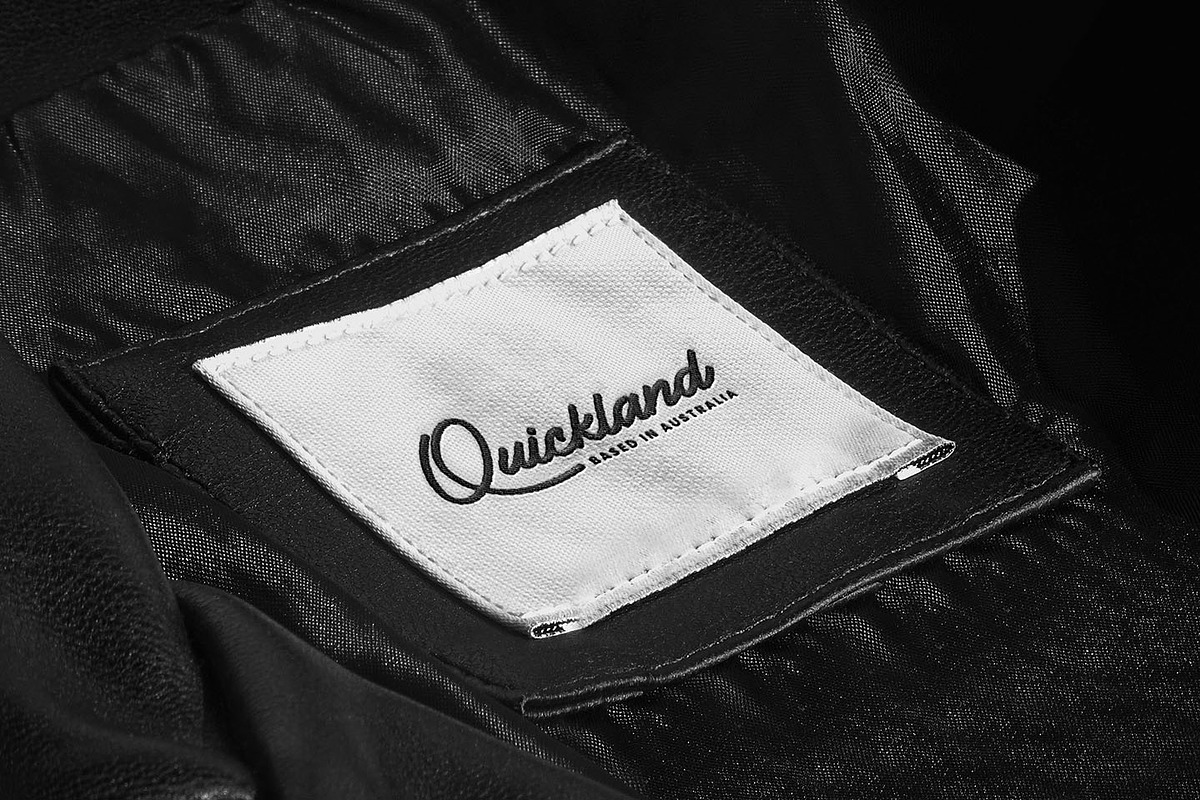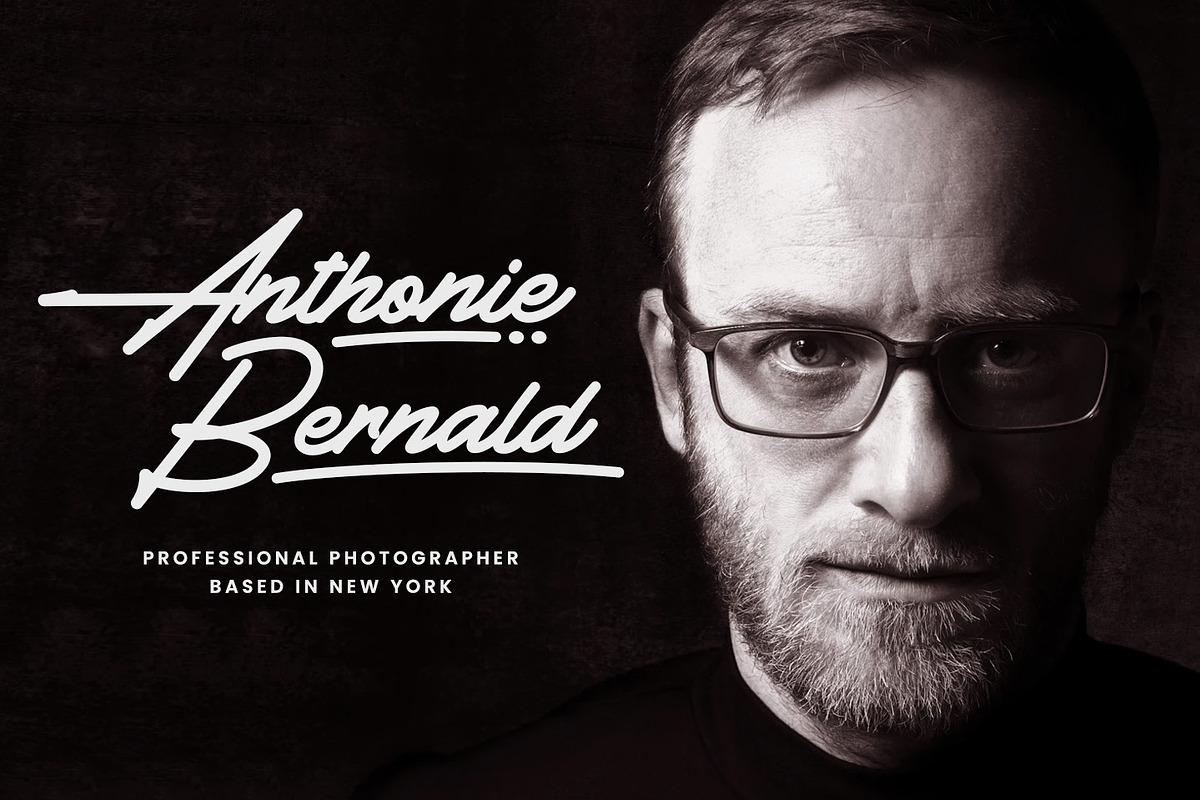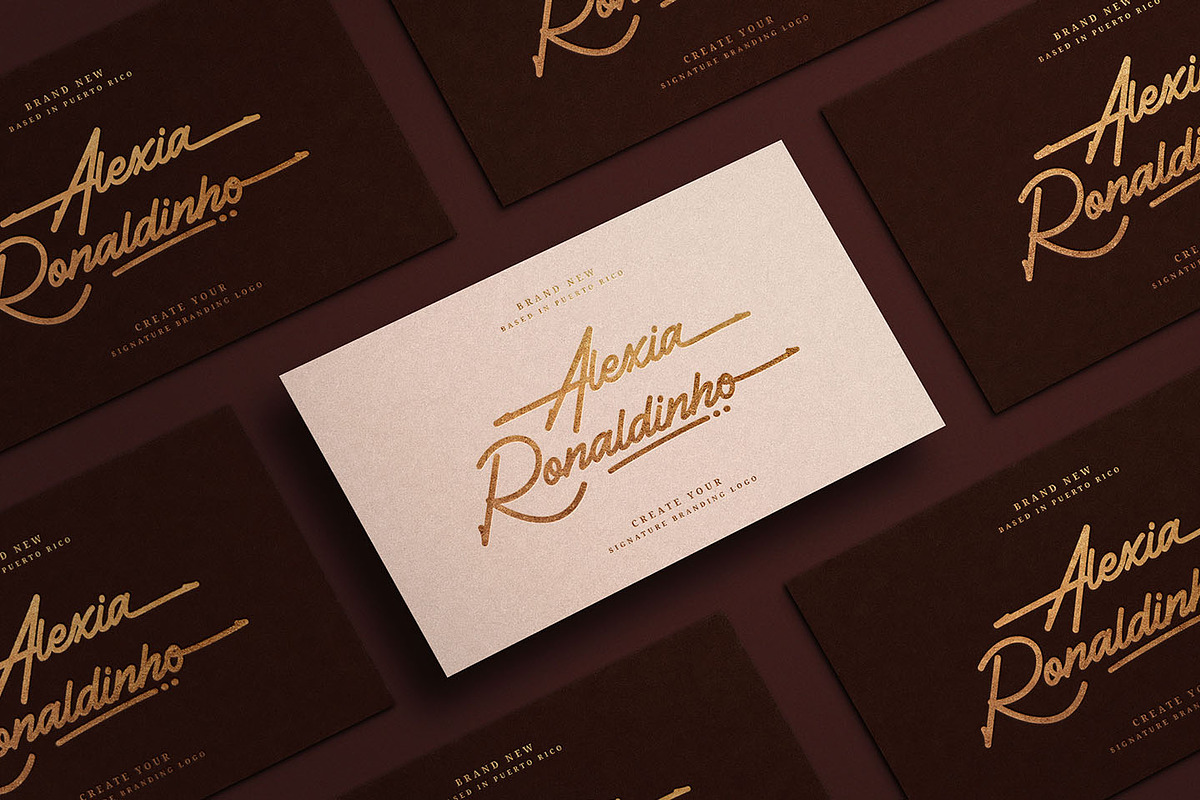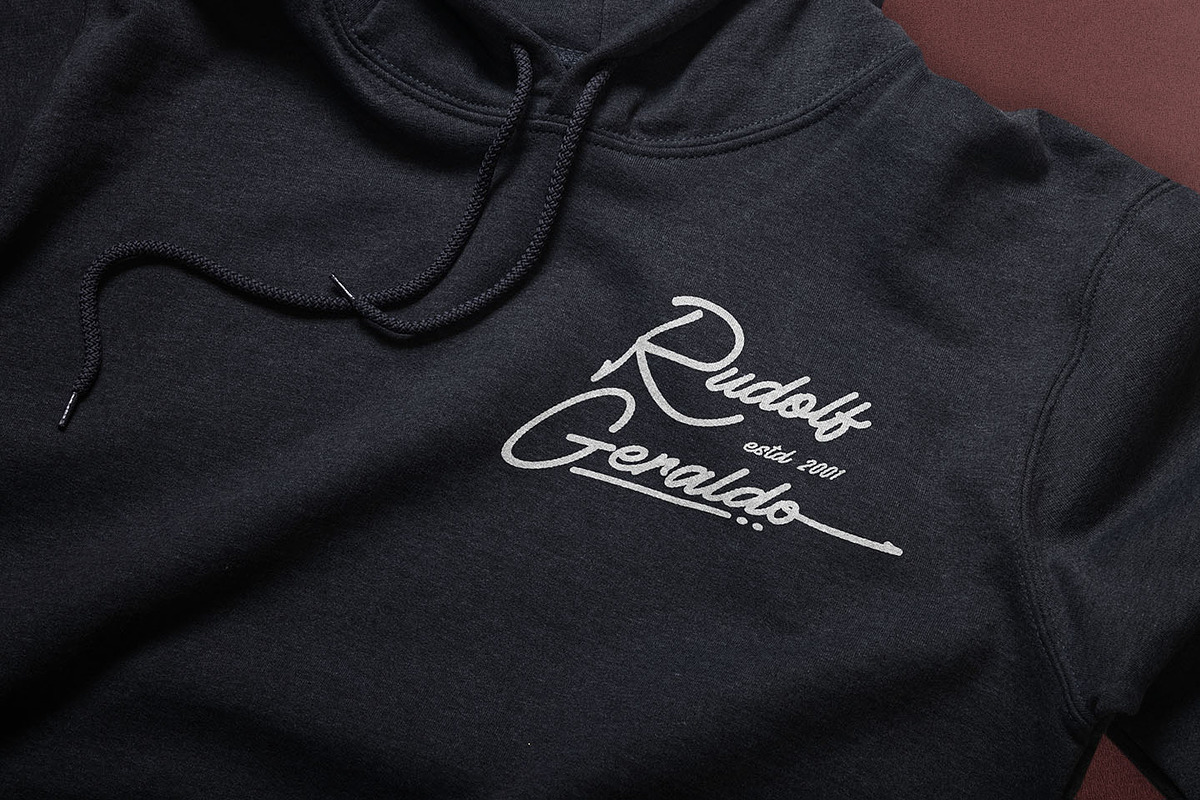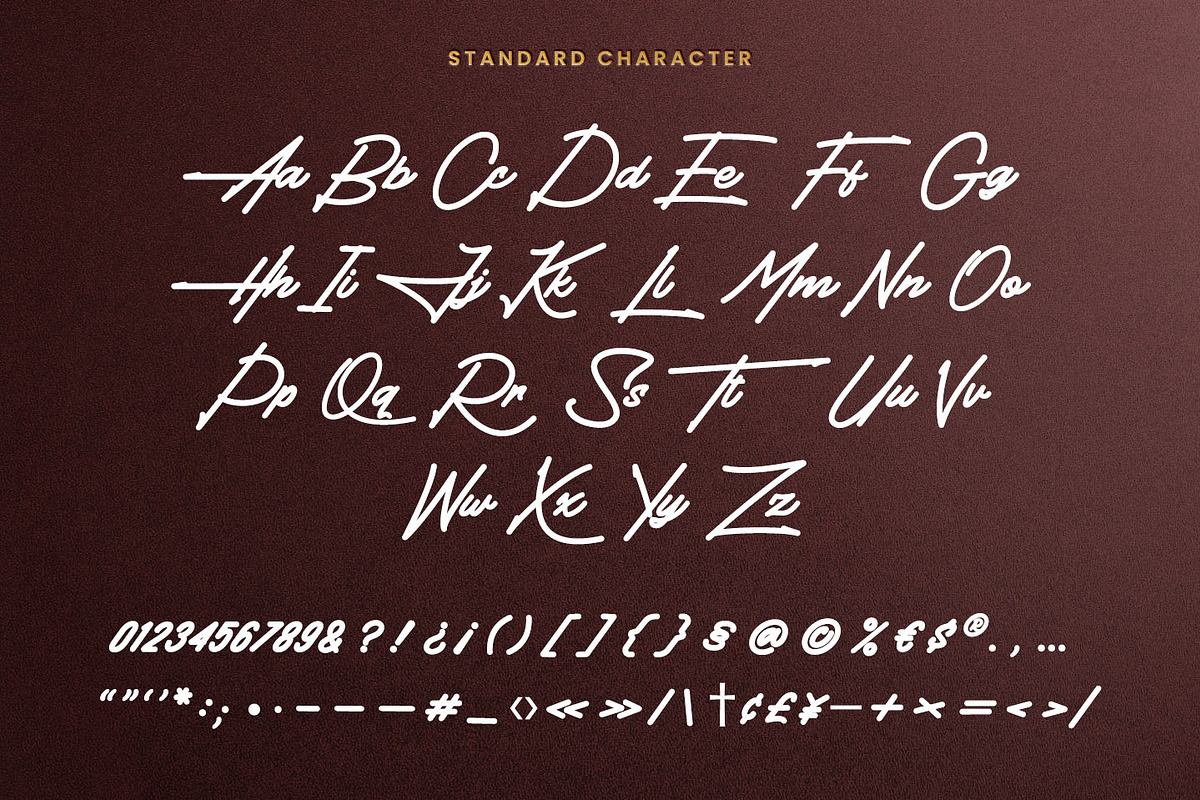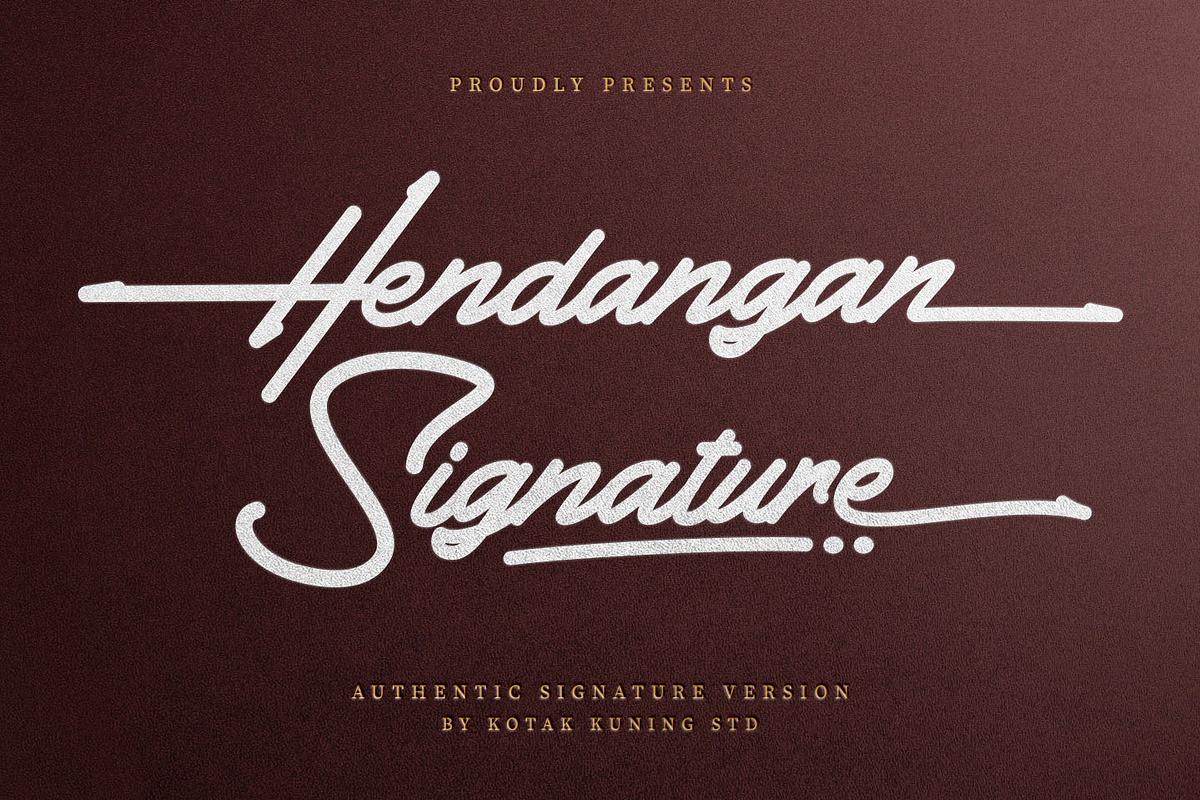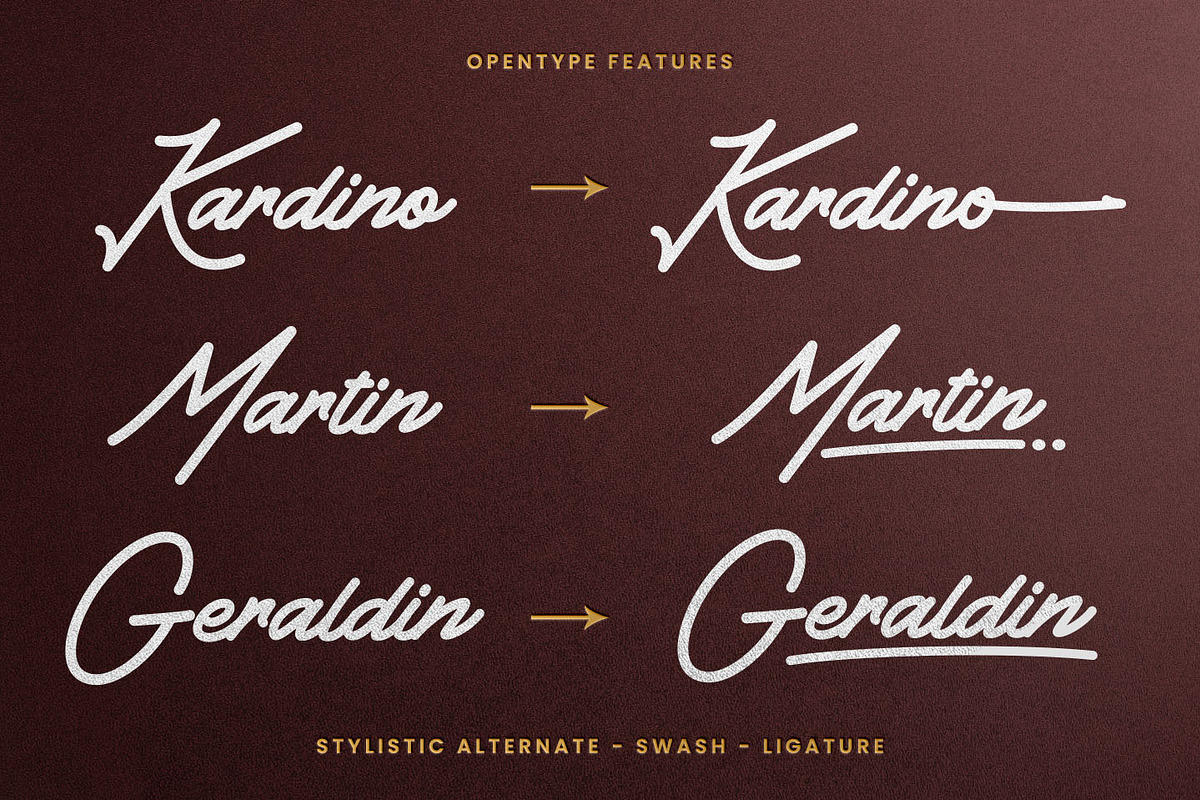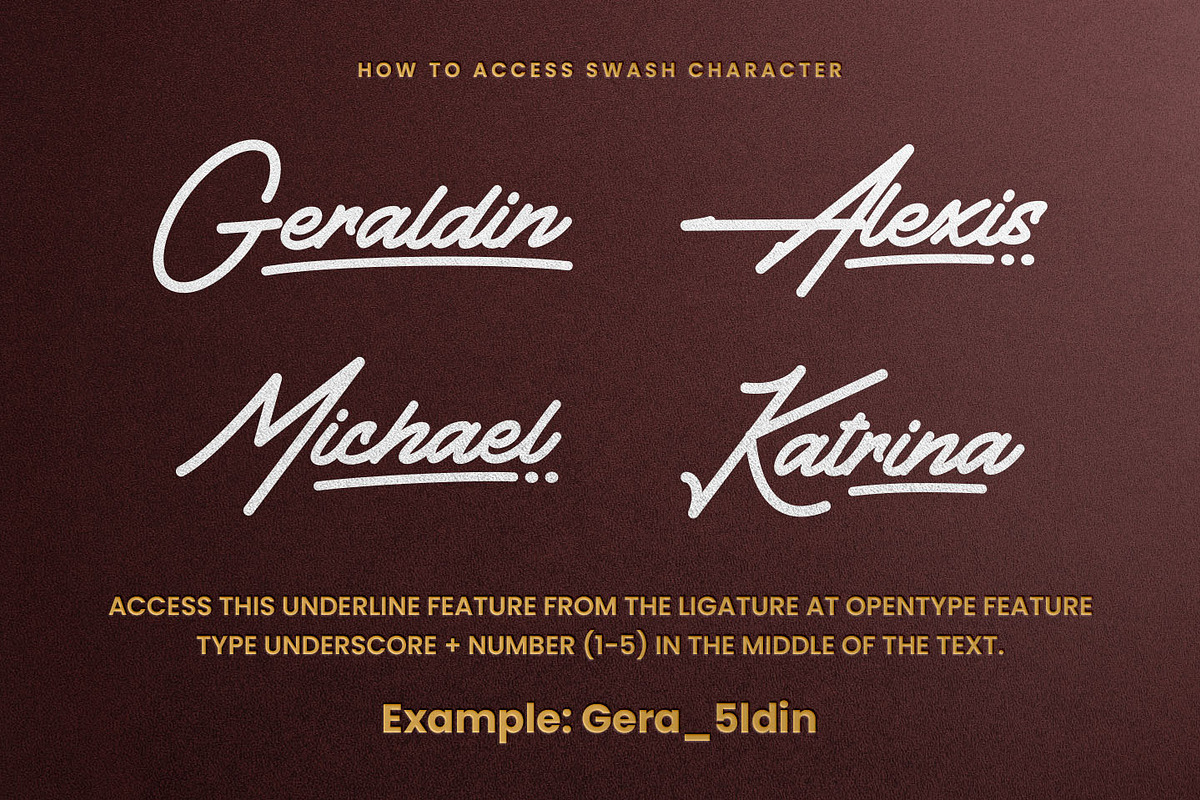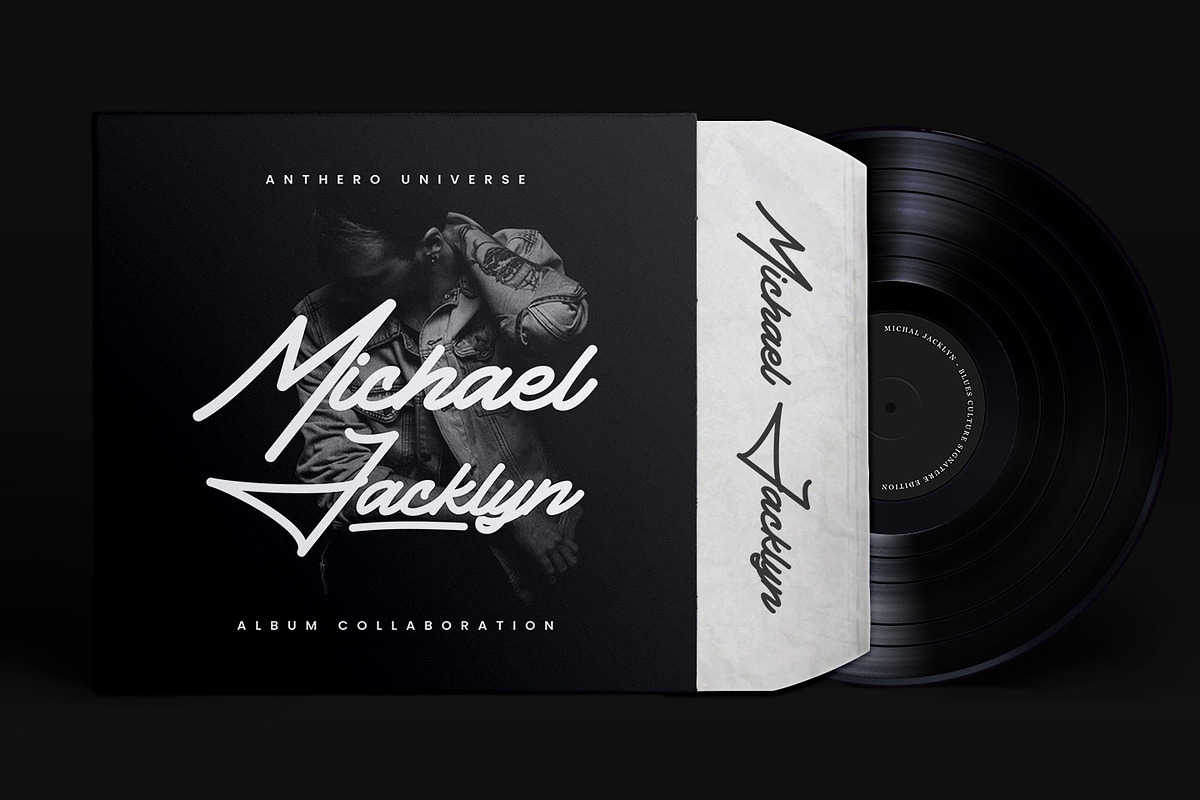
Hendangan Signature Font
Hendangan Signature is a handwritten signature script with a natural & stylish flow. This collection of scripts is perfect for personal branding.
Hendangan Signature Font is perfect for many different projects such as logos & branding, invitation, stationery, wedding designs, social media posts, advertisements, product packaging, product designs, label, photography, watermark, special events, or anything.